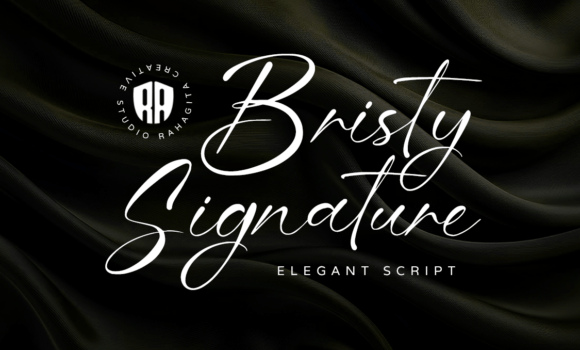
Bristy Signature Font – Free Download Introduction to Bristy Signature Font Immerse your designs in elegance with Bristy Signature, a sophisticated script font that oozes class. 📸 Preview Gallery 6 images 📌 Product Name Bristy Signature Font 👤 Author Rahagita